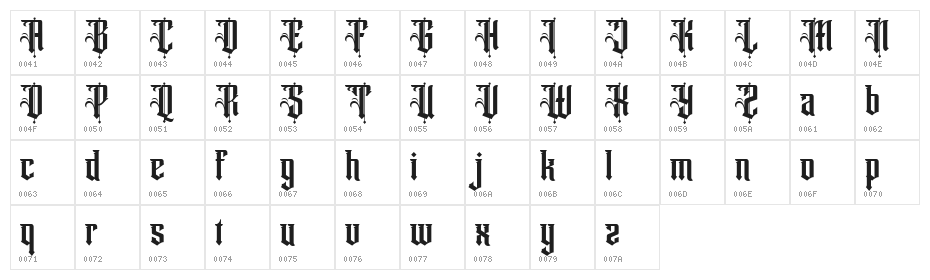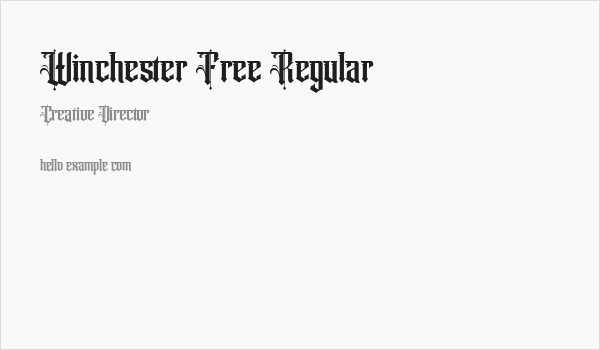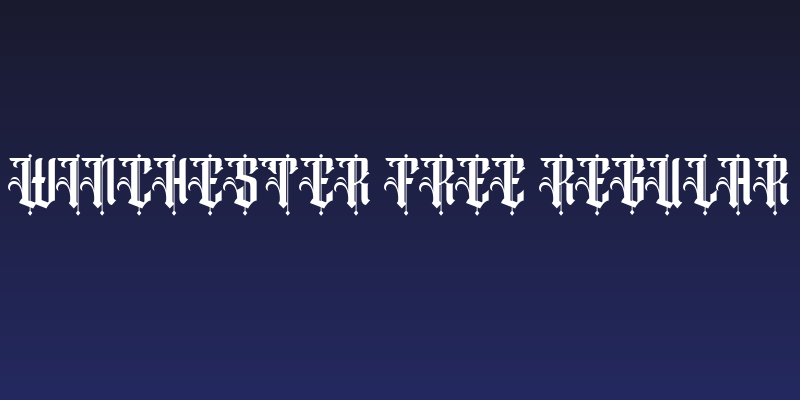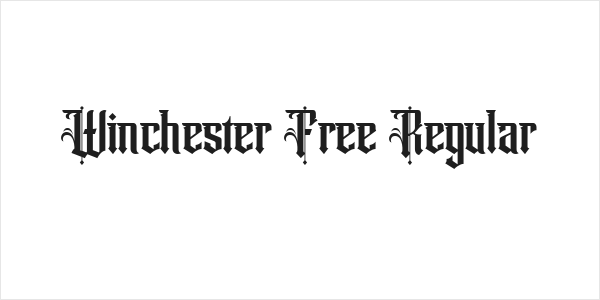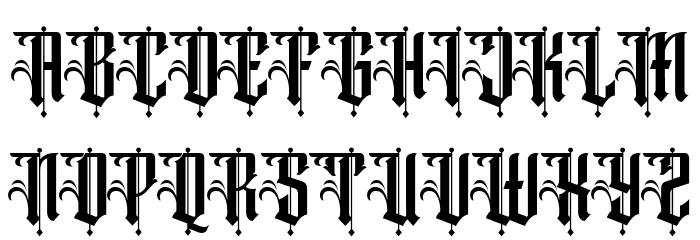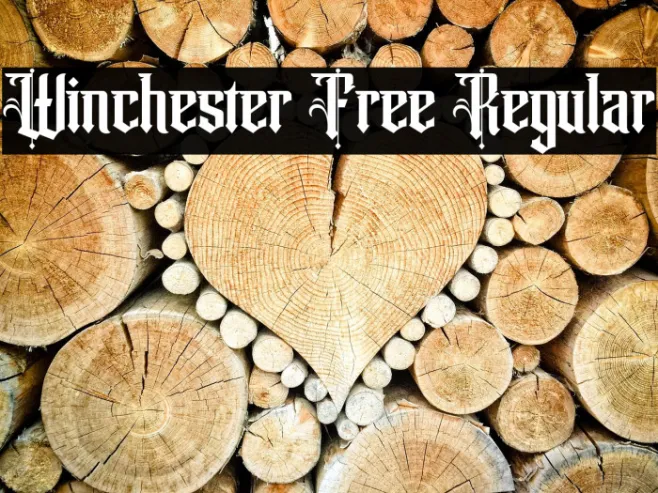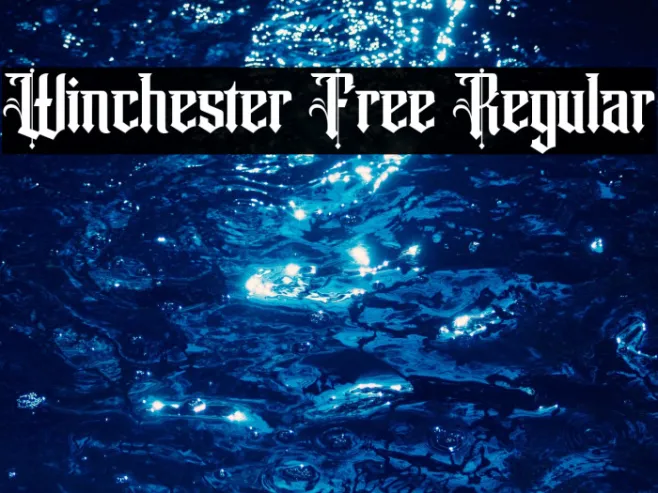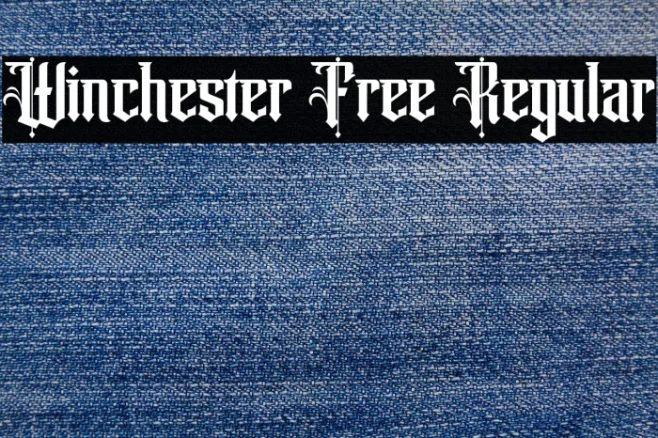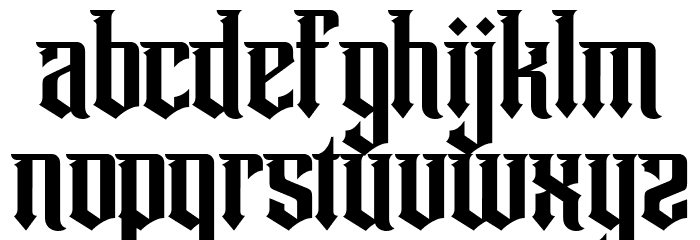
Winchester Free Regular Font
Winchester Free Regular Description
This font features a striking blackletter style with intricate, ornate details that are reminiscent of medieval script. The uppercase letters are particularly elaborate, with sharp, pointed serifs and decorative flourishes that give each character a unique, gothic appearance. The lowercase letters maintain a similar aesthetic, though they are slightly less embellished, allowing for improved readability. The numbers and special characters are designed to match the overall theme, ensuring a cohesive look across all text elements. This font's bold and dramatic style makes it ideal for projects that require a historical or fantasy feel.
| Overall Style | Gothic, Medieval |
| Use Case | Headlines, Logos, Decorative text |
| Proposed Projects | Ideal for fantasy book covers, historical event posters, or gothic-themed branding. |